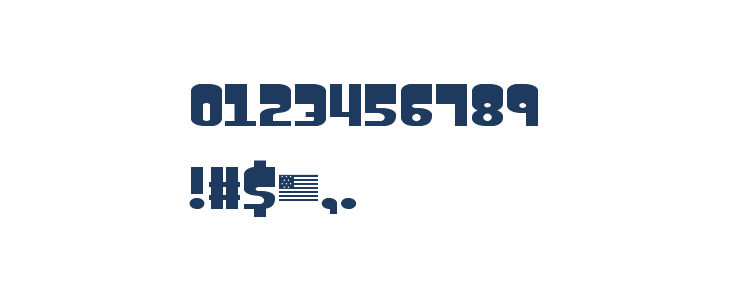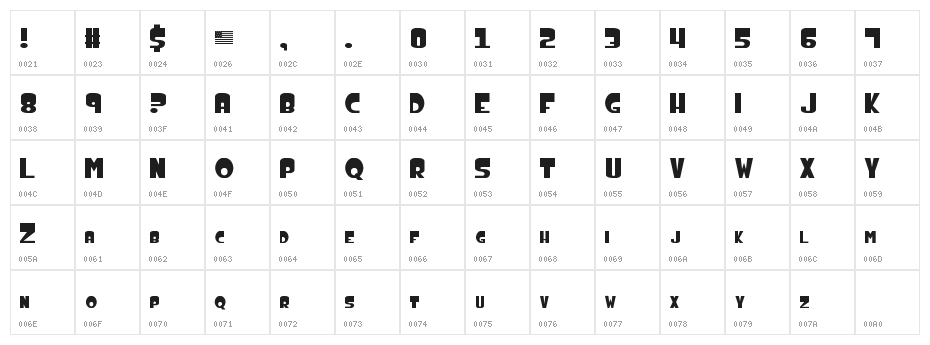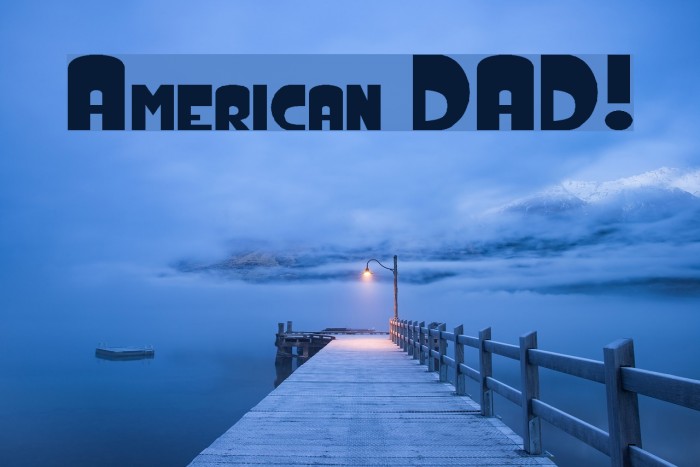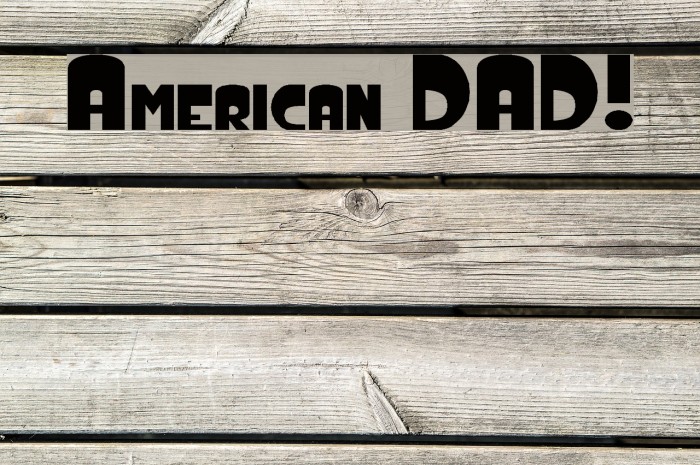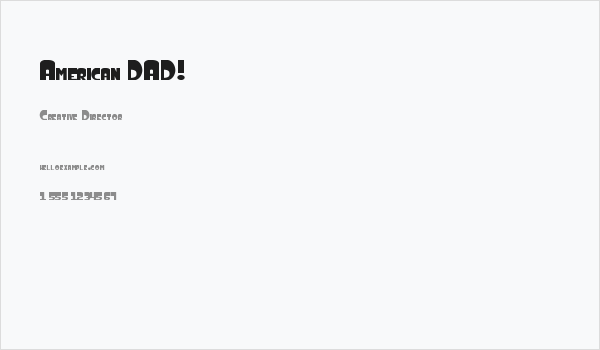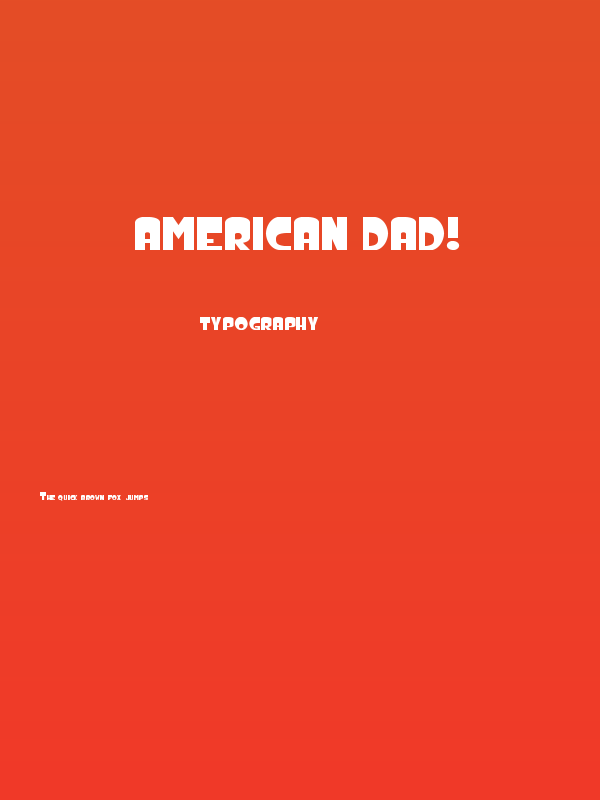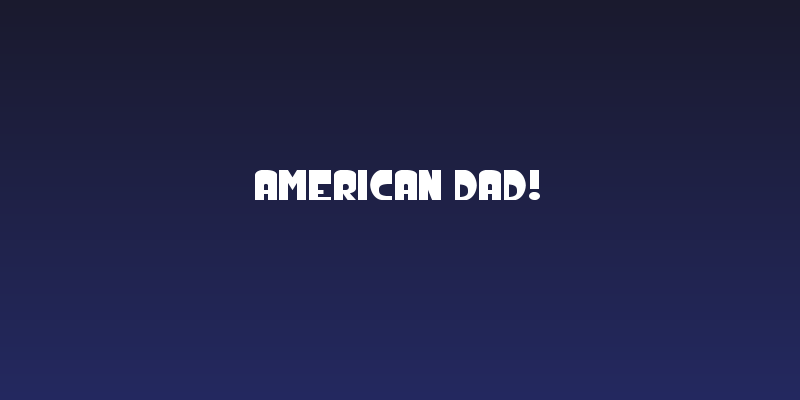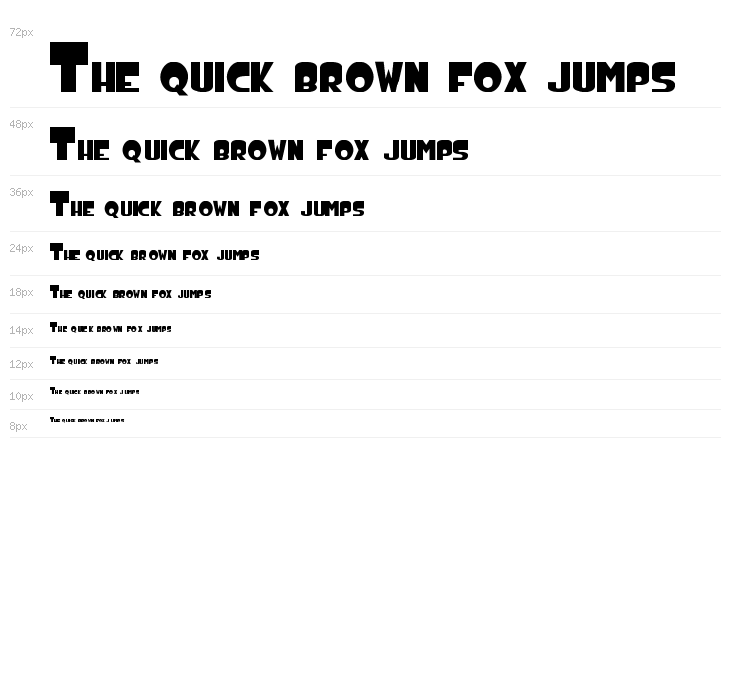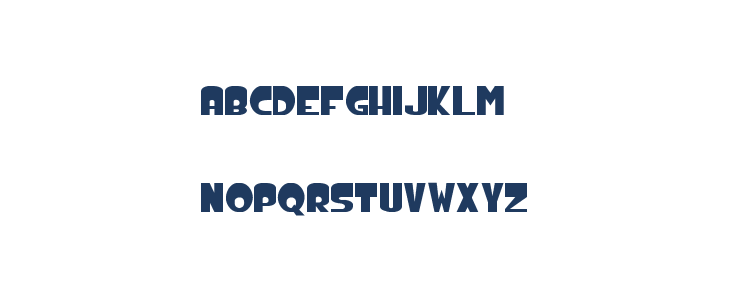
American DAD! Font
American DAD! Description
This bold and impactful font features strong geometric shapes with a distinctively modern and playful style. The uppercase letters are characterized by thick, uniform strokes that create a sense of strength and stability. The lowercase letters maintain the same boldness, ensuring consistency throughout the typeface. The numbers are equally robust, with a design that complements the letters. Special characters are included, adding versatility to the font. The overall aesthetic is reminiscent of retro and comic styles, making it ideal for projects that require a fun and eye-catching typeface.
| Overall Style | Modern, Playful, Retro |
| Proposed Projects | Ideal for posters, logos, comic book titles, and any design needing a bold, playful touch. |